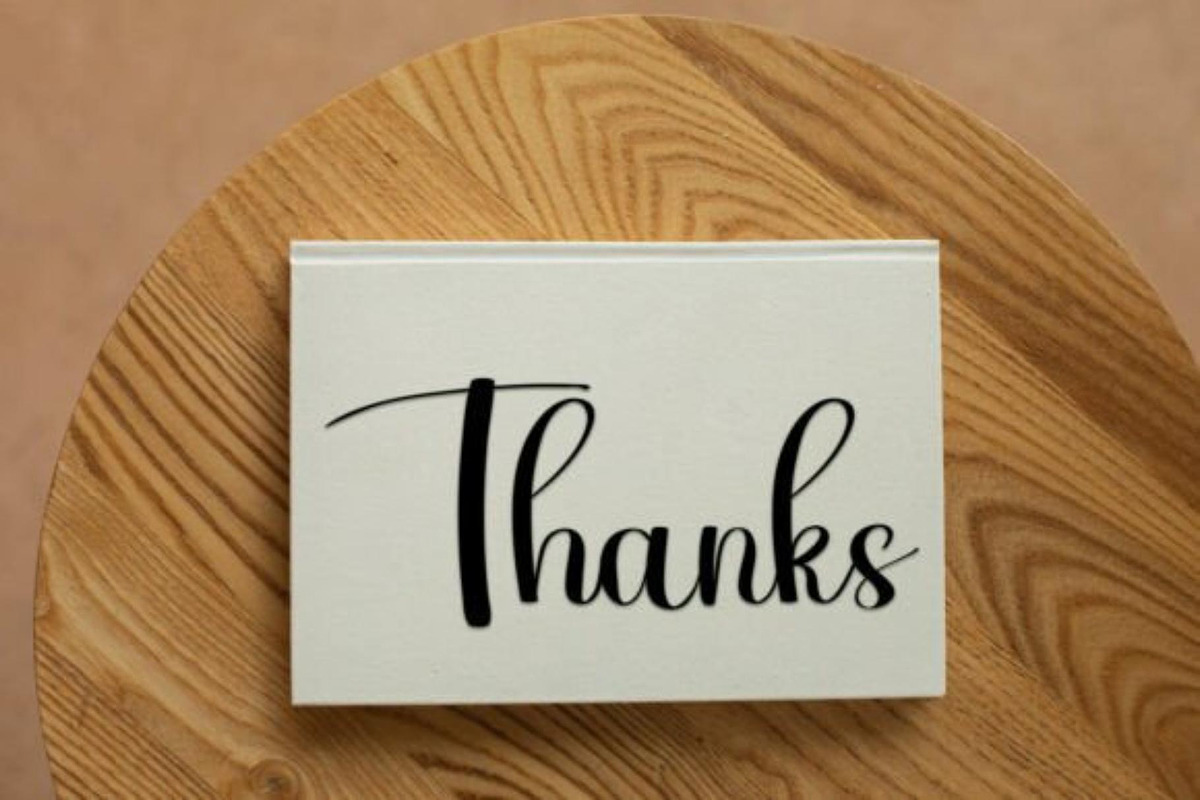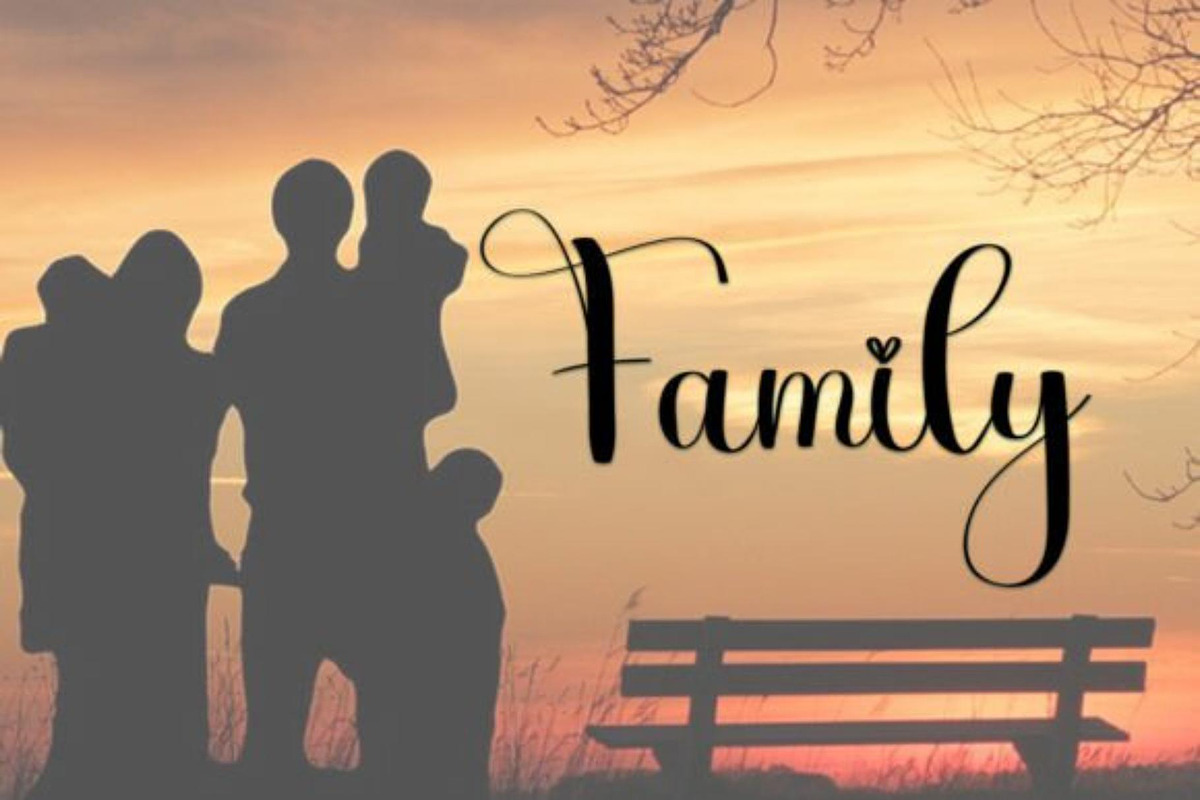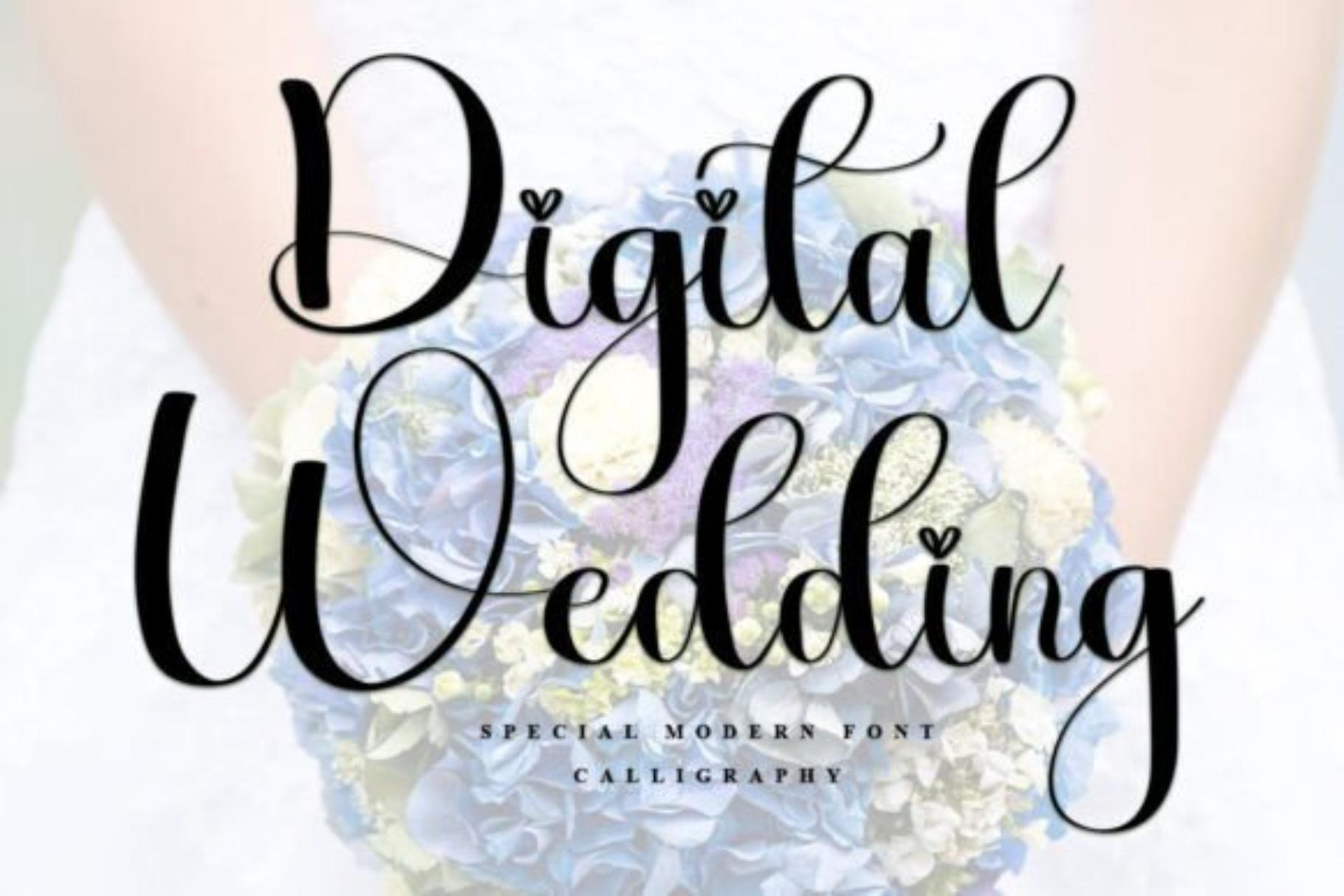
Digital Wedding Elegant Wedding Font
Digital Wedding is an elegant handwritten script font designed to add romance, beauty, and sophistication to your creative projects.
Its graceful letterforms and stylish curves make it ideal for wedding stationery, luxury branding, and modern design applications.
• Wedding Invitations
• Save The Date Cards
• Bridal Shower Invitations
• Wedding Signage
• Event Branding
• Logo Design
• Greeting Cards
• Social Media Graphics
• Product Packaging
• Cricut & Silhouette Projects
• Elegant Handwritten Style
Digital Wedding combines timeless elegance with modern handwritten charm, making it a perfect choice for wedding projects, branding, invitations, and beautiful creative designs.